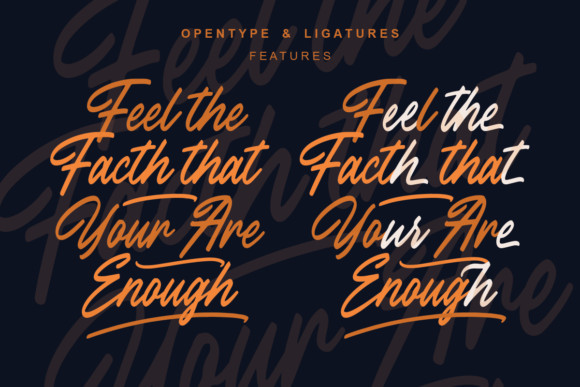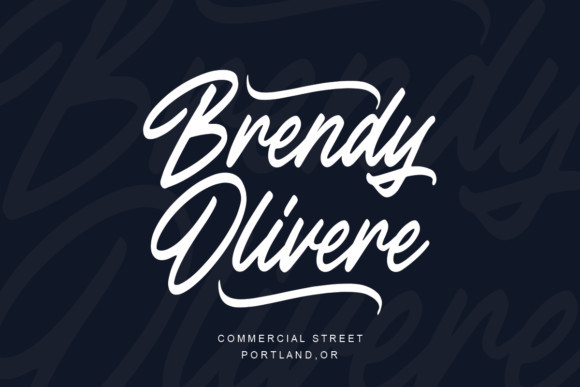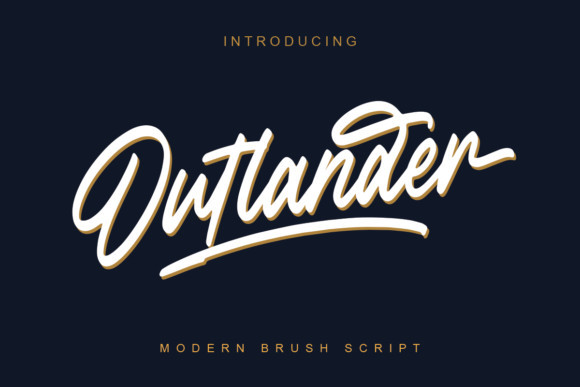
Outlander Font
Outlander Brush Script is a handwritten typeface created using custom pen brushes. Get inspired by its vintage charm and flowing appearance!